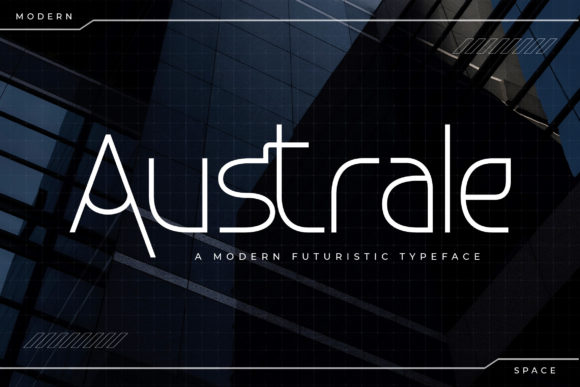
Australe Font: A Futuristic Typeface for Modern Design
In the realm of typography, fonts play a crucial role in shaping the visual identity of a brand. With the ever-evolving design landscape, the demand for modern and versatile fonts has increased significantly. One such font that has gained attention in recent times is Australe Font. In this article, we’ll delve into the features, benefits, and uses of Australe Font, exploring its potential in creating stunning visual experiences.
What is Australe Font?
Australe Font is a futuristic typeface designed specifically for creating minimalistic logos, store brands, and modern technology interior themes. Its digital world feel makes it an ideal choice for designers seeking to craft a unique visual identity for their clients or projects. Australe Font boasts a sleek and contemporary aesthetic, perfect for wordmarks, titles, book covers, font games, e-sports, taglines, and more.
Key Features of Australe Font
- Digital World Feel: Australe Font is crafted to evoke a sense of futurism, making it perfect for projects that require a modern and cutting-edge look.
- Minimalistic Design: The font’s clean and simple design ensures that it can be used in a variety of contexts, from logos to titles and taglines.
- PUA Encoded: Australe Font is PUA (Private Use Area) encoded, allowing easy access to a wide range of glyphs and ligatures.
- Versatile: This font is suitable for various design applications, including wordmarks, book covers, font games, e-sports, and modern technology interior themes.
Benefits of Using Australe Font
Australe Font offers several benefits to designers and brands looking to create a strong visual identity. Some of the advantages of using Australe Font include:
- Unique Visual Identity: Australe Font helps create a distinctive visual identity that sets a brand apart from its competitors.
- Flexibility: The font’s versatility ensures that it can be used across various design applications, from logos to titles and taglines.
- Modern Aesthetic: Australe Font’s futuristic design gives projects a modern and cutting-edge look, perfect for brands seeking to establish a strong online presence.
- Easy to Use: The PUA encoding of Australe Font makes it easy to access and use a wide range of glyphs and ligatures.
Use Cases for Australe Font
Australe Font is a versatile typeface that can be used in various design applications. Some of the potential use cases for Australe Font include:
- Logo Design: Australe Font is perfect for creating minimalistic logos that require a modern and futuristic look.
- Branding: The font can be used to create a consistent visual identity across various branding materials, including business cards, brochures, and website headers.
- Book Covers: Australe Font can add a touch of modernity to book covers, making them stand out in a crowded market.
- Font Games: The font’s digital world feel makes it suitable for font games and other interactive design applications.
- E-Sports: Australe Font can be used to create a strong visual identity for e-sports teams, logos, and branding materials.
- Taglines: The font’s clean and simple design makes it perfect for creating effective taglines that require a modern and futuristic look.
- Modern Technology Interior Themes: Australe Font can be used to create a cohesive visual identity for modern technology interior themes, including website headers, UI elements, and more.
Tips for Using Australe Font Effectively
To get the most out of Australe Font, here are some tips for using it effectively:
- Pair with Other Fonts: Experiment with pairing Australe Font with other fonts to create a unique visual hierarchy.
- Adjust Font Sizes: Adjust font sizes to create visual interest and emphasize important information.
- Use Ligatures: Take advantage of Australe Font’s ligatures to add a touch of sophistication to your designs.
- Experiment with Colors: Try out different color schemes to find the perfect combination that complements Australe Font.
Australe Font is a versatile and modern typeface that offers a wide range of design possibilities. Its futuristic aesthetic, digital world feel, and PUA encoding make it an ideal choice for designers seeking to create a unique visual identity for their clients or projects. By understanding the features, benefits, and use cases of Australe Font, designers can unlock its full potential and create stunning visual experiences that leave a lasting impression.